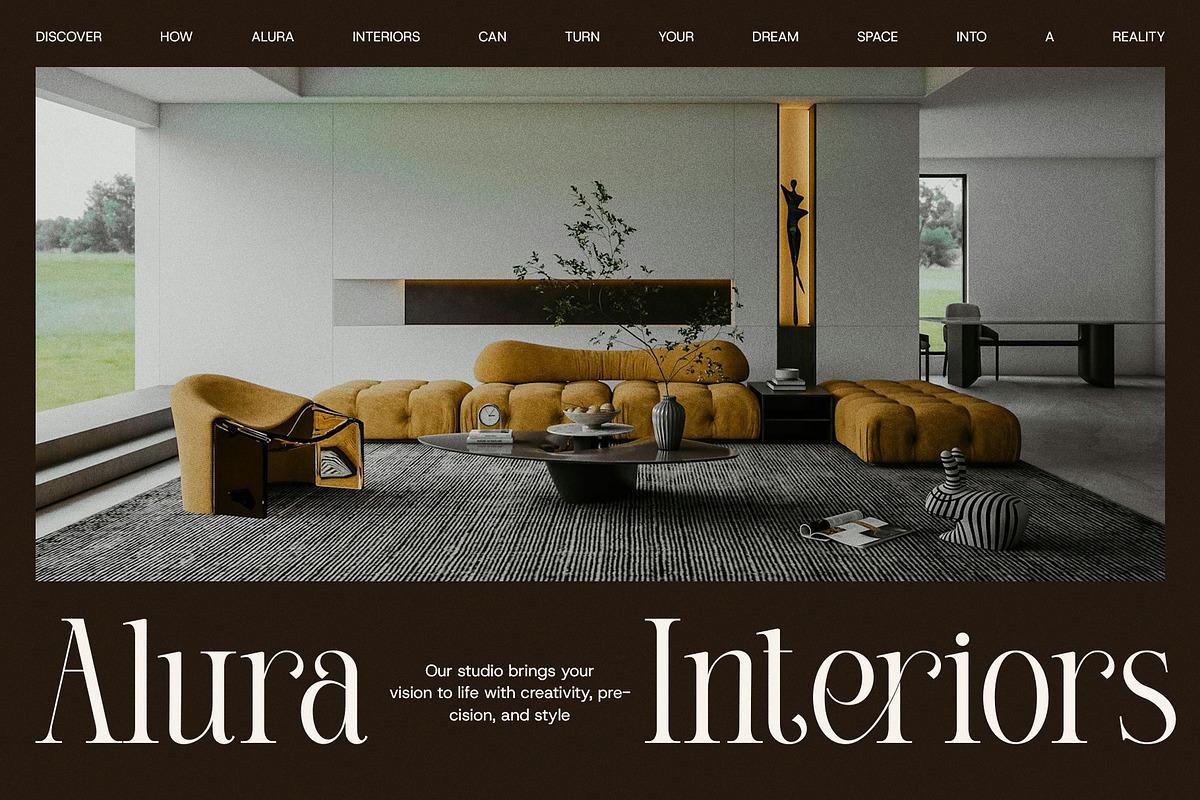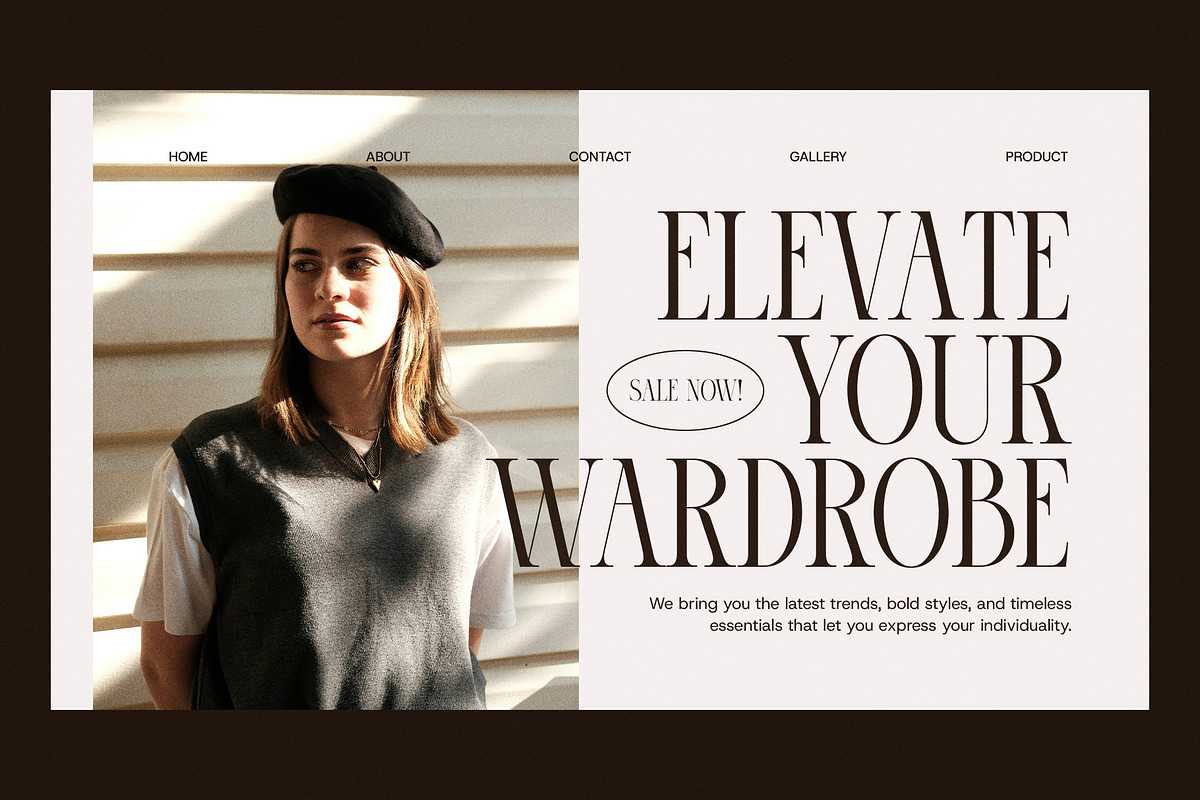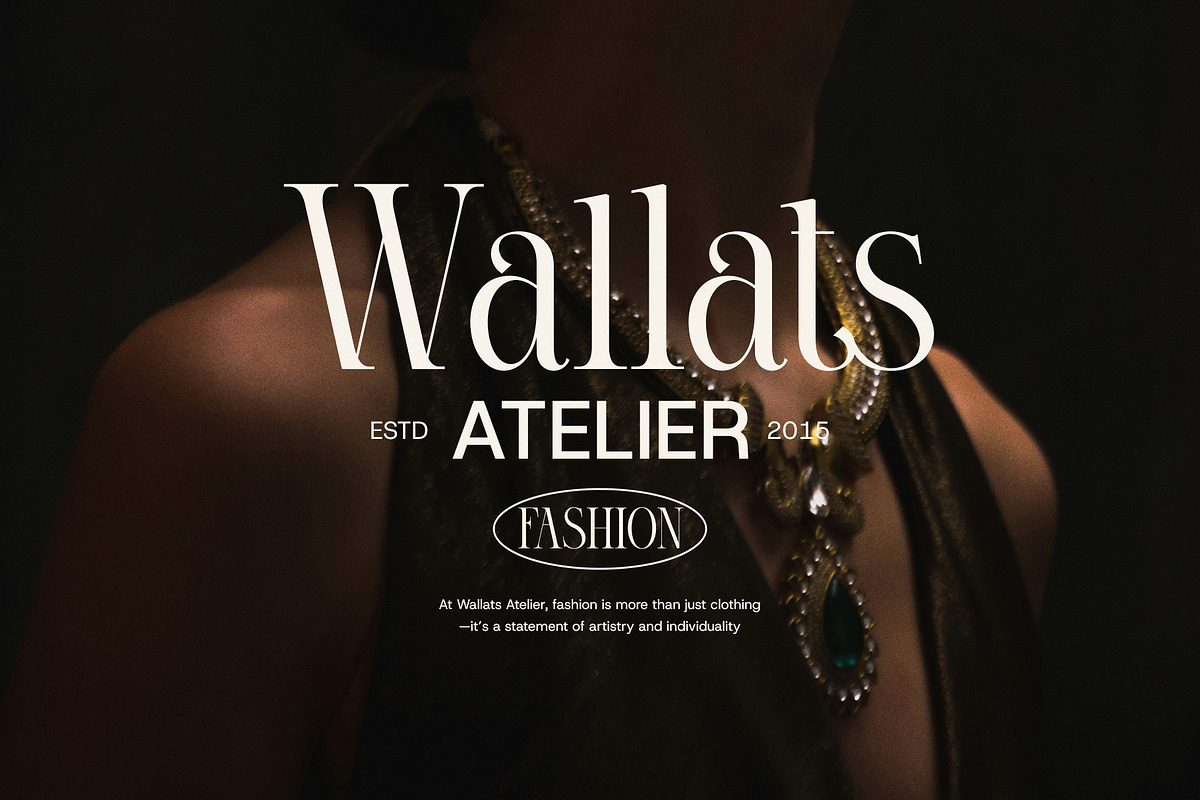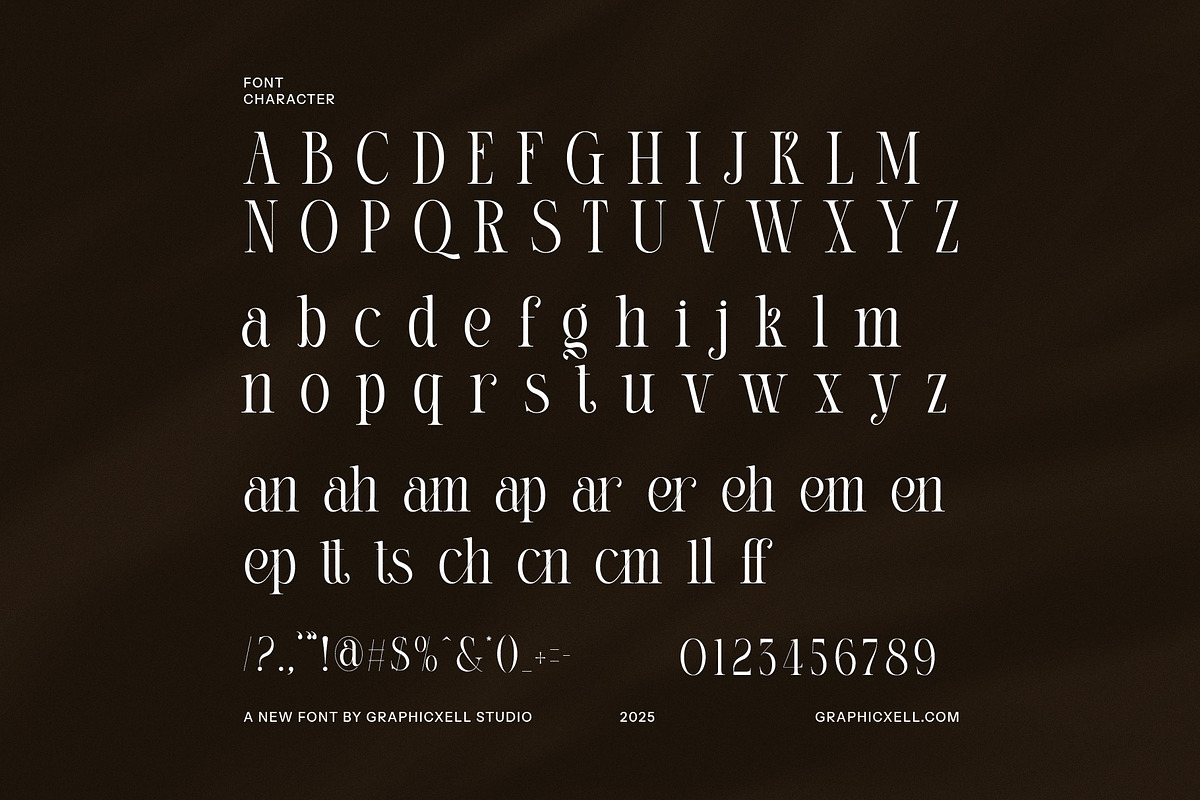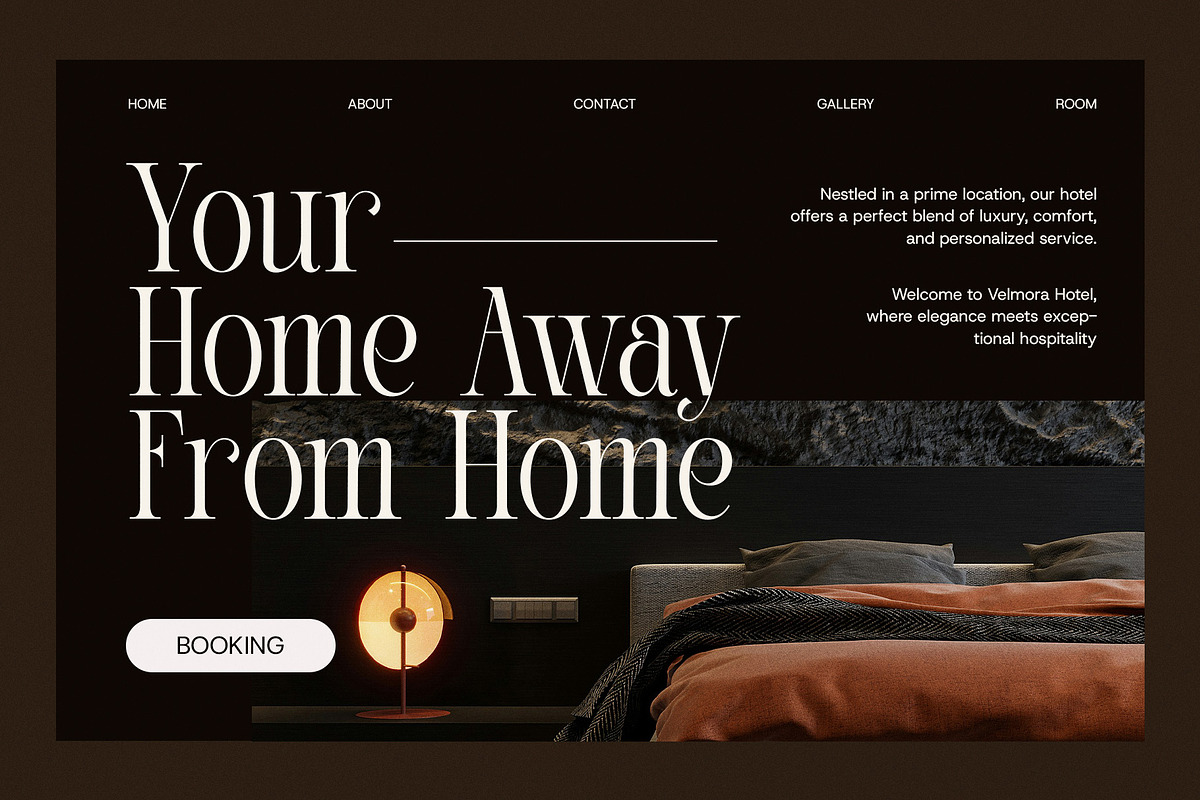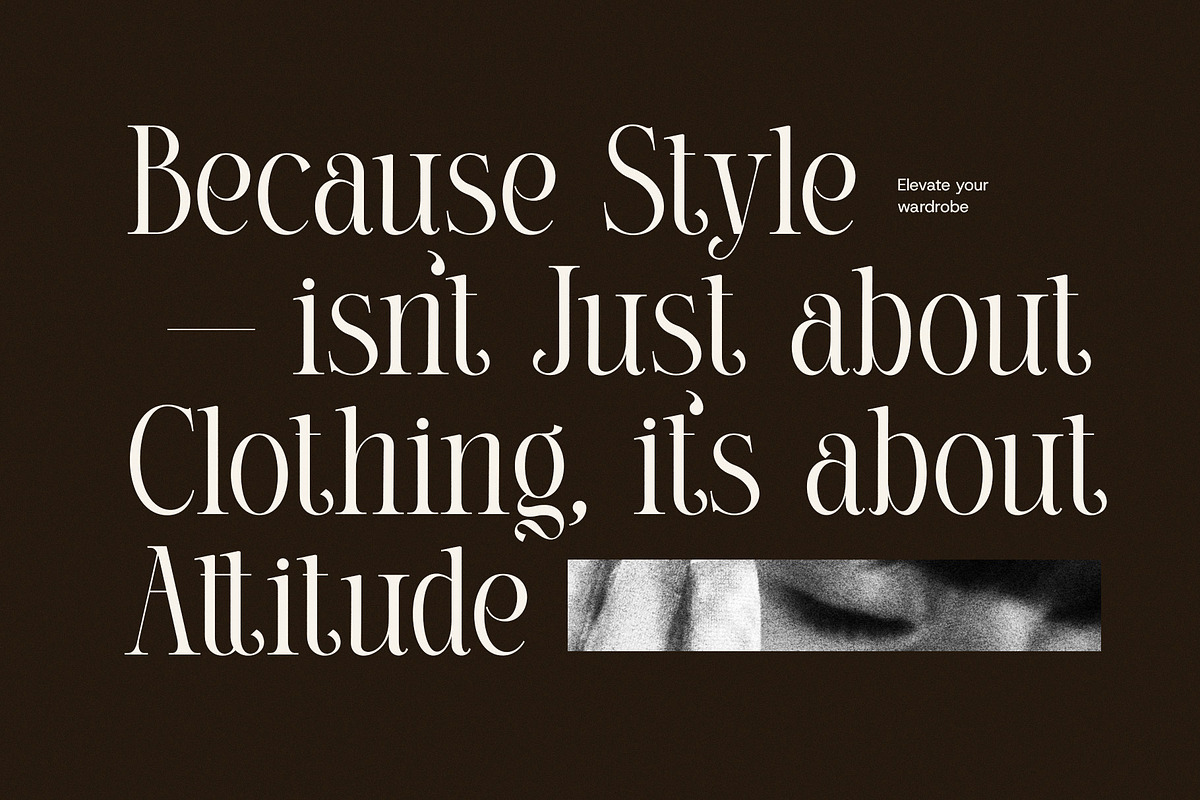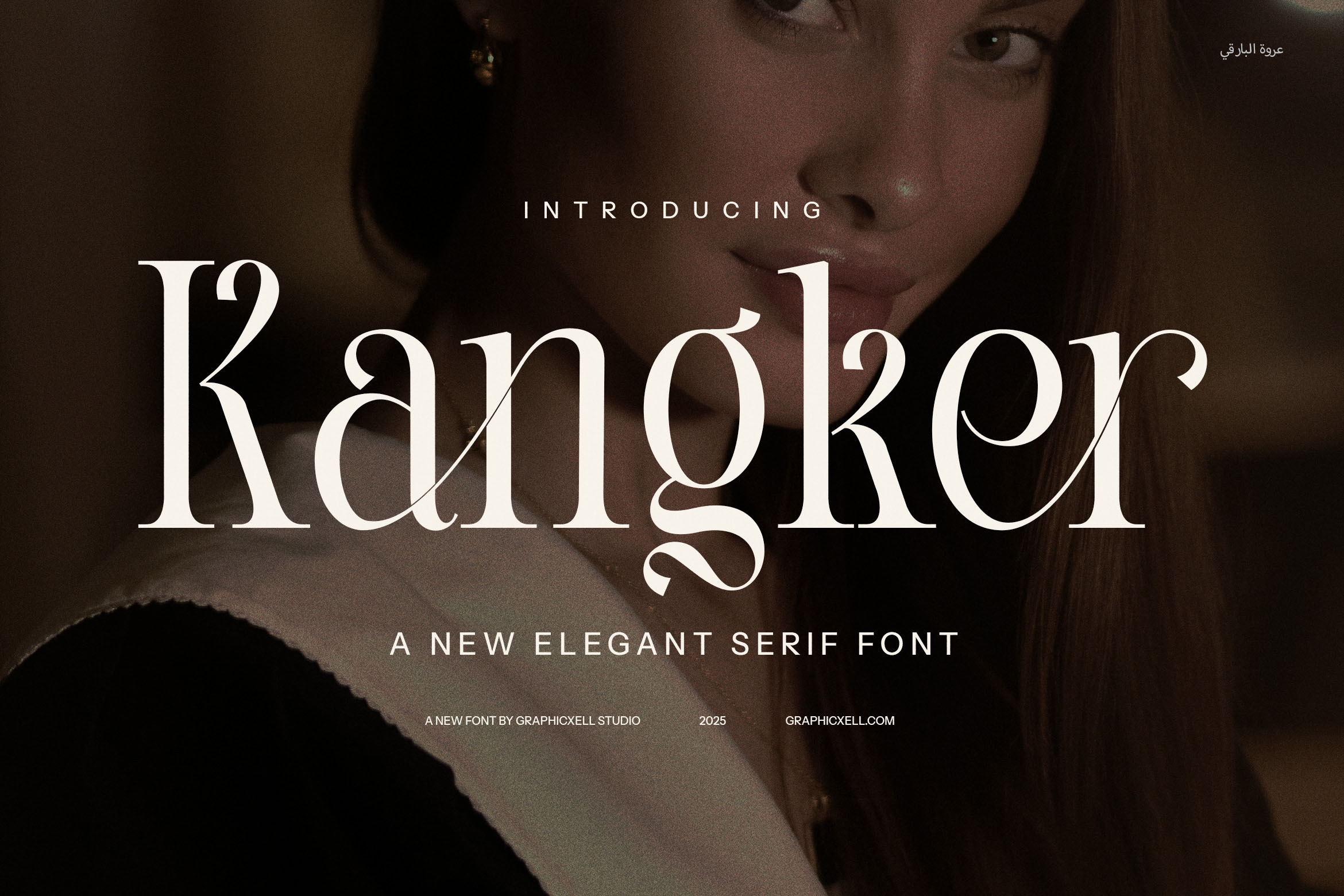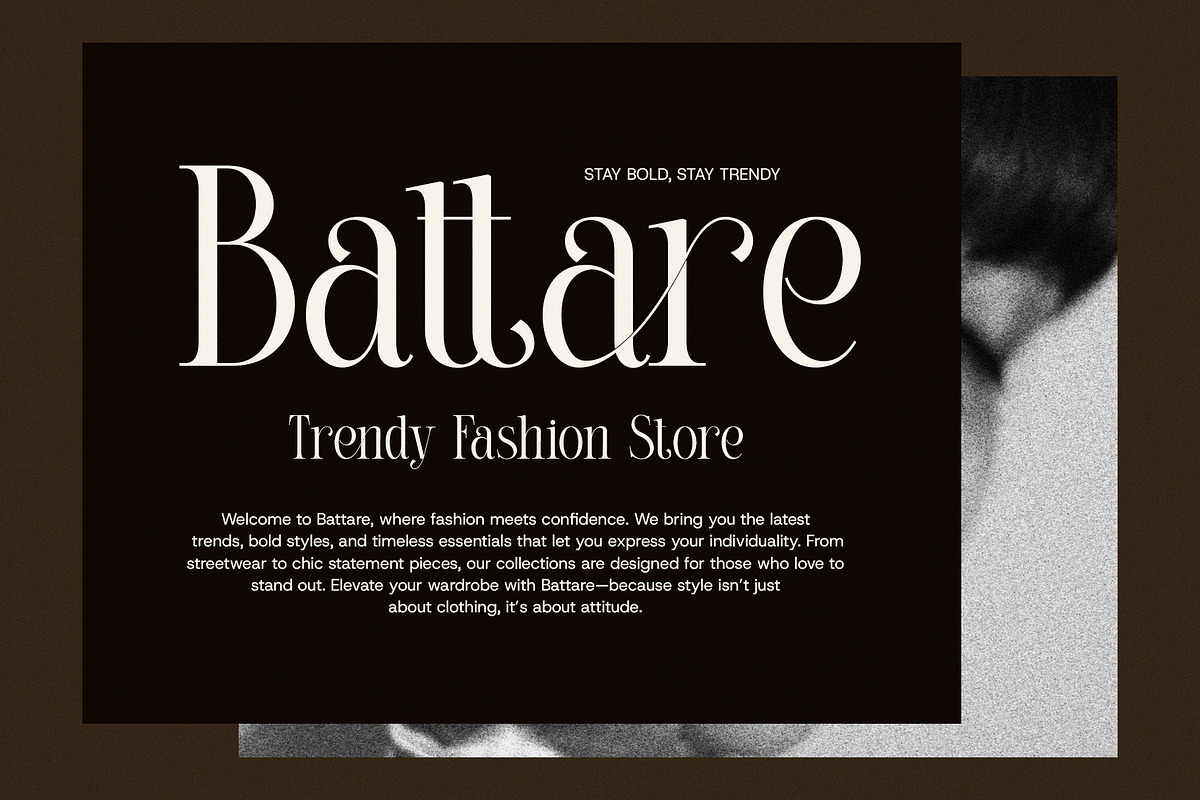
Kangker Modern Serif Font
Kangker Modern Serif Font is the epitome of sophistication and style, offering a sleek, contemporary twist on classic serif design. Perfect for those seeking to elevate their brand identity, this font combines timeless elegance with modern flair. Its unique ligatures and alternate letterforms add a touch of creativity, making it a standout choice for a variety of projects.
Whether you're designing logos, branding materials, or eye-catching websites, Kangker Modern Serif ensures your content stands out with clarity and class. Its refined serifs provide a touch of tradition while the clean lines and stylish curves give it a fresh, contemporary feel. Ideal for both digital and print, this font shines across magazines, layouts, product packaging, advertisements, and more.
Kangker Modern Serif is versatile, making it a perfect match for a wide range of industries including fashion, luxury products, food, and boutique branding. Its readability and elegance make it an excellent choice for businesses that want to communicate both professionalism and creativity.
Designed with attention to detail, the font's ligatures and alternates provide an extra layer of customization, ensuring every project feels unique and tailored. Whether you're looking to create an upscale, modern aesthetic or add a distinctive touch to your design, Kangker Modern Serif Font is the perfect solution for making your visual content both beautiful and impactful.